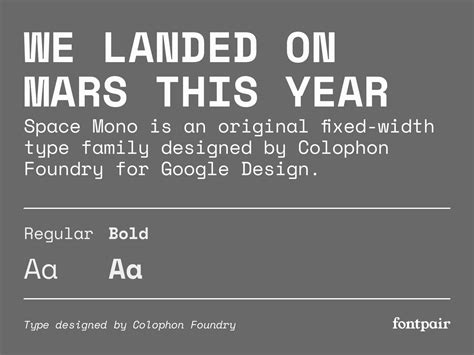
Top 32+ Monospace Google Fonts Bundle Ttf
I used to spend hours tweaking typography for code editors and technical documentation, only to end up with blurry characters that strained my eyes. When I finally shifted my workflow to utilize local assets, discovering the Top 32+ Monospace Google Fonts Bundle Ttf completely changed how I approach UI development. Having these typefaces locally means offline access and zero layout shift during that critical initial render.
Why I Reach for the Top 32+ Monospace Google Fonts Bundle Ttf
Here's the thing about web typography: relying on external CDNs can bottleneck your site. In my experience, bundling the TTF files directly into your project gives you absolute control over subsetting and font-face declarations. Google's library is massive, but filtering through hundreds of families to find decent character spacing is tedious. That's why having a pre-curated collection saves time. I've tested countless libraries, and a solid monospaced bundle ensures your terminal outputs, code blocks, and tabular data align perfectly without unexpected wrapping.
Standout Typefaces in the Top 32+ Monospace Google Fonts Bundle Ttf
Not all monospaced fonts are created equal. Some are built for print, while others are optimized for screen clarity at small sizes. When I tested this specific collection, a few families immediately stood out for their legibility and distinct personality. JetBrains Mono remains my go-to for nested code blocks because of its increased x-height. Space Mono offers a quirky, retro aesthetic that works surprisingly well for terminal-style UI components. Let's look at how a few of these compare when implemented locally.
Font FamilyBest Use CaseLigature Support
Fira CodeHeavy programming UIYes
Roboto MonoGeneral web text / Data tablesNo
IBM Plex MonoTechnical documentationNo
Sorting through the Top 32+ Monospace Google Fonts Bundle Ttf locally lets you test these ligatures and weights without any network latency. Moving away from the standard CDN requires a bit of manual setup, but the performance gains are absolutely worth the effort. You need to define your own @font-face rules. Honestly, this is where most developers make mistakes by not optimizing the actual font files. Here is my typical workflow:
Finding the right typographic balance for technical interfaces doesn’t have to be a guessing game. By downloading and hosting these assets yourself, you gain both performance and design consistency. Take the time to subset your files, test them across different screen resolutions, and see how much cleaner your code blocks look when the typography is actually built for the job.